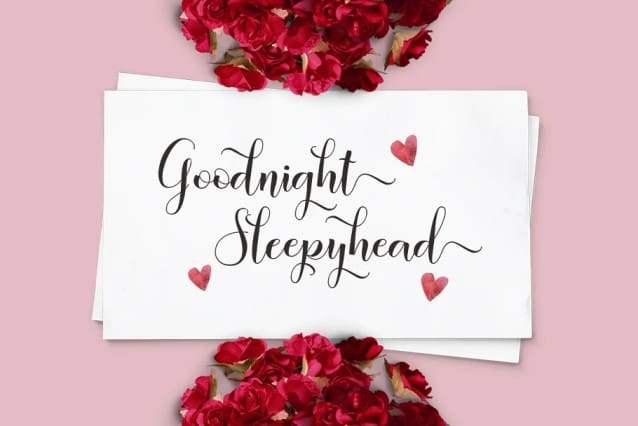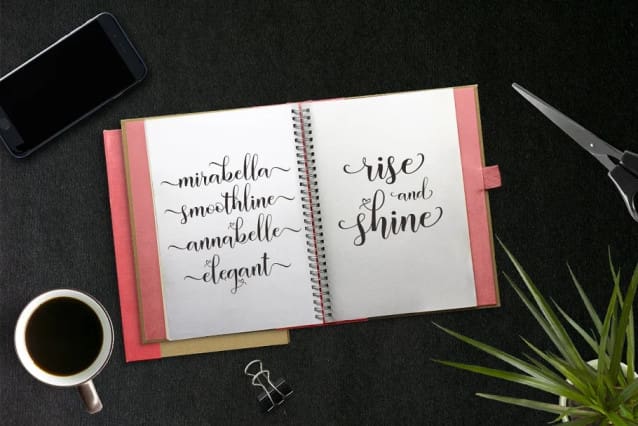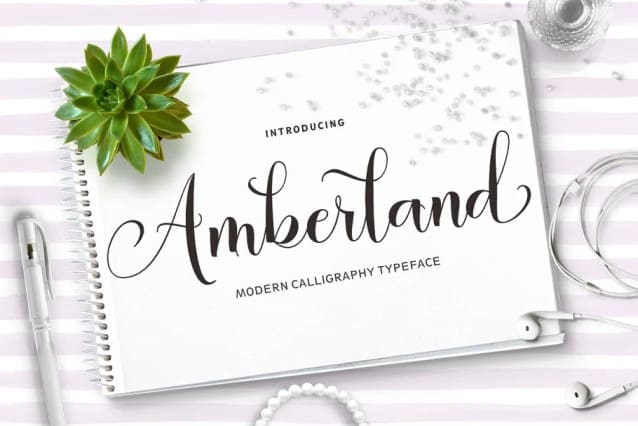
Amberland Font
Amberland Font is a calligraphic manuscript modern, dynamic and pretty with swashes. Can be used for many purposes. such as title, signature, logo, wedding invitations, letterhead, signage, labels, newsletters, posters, badges, etc.
Amberland Script features Open type, including the initial and terminal letters, ligatures and International support for most Western languages ​​included.